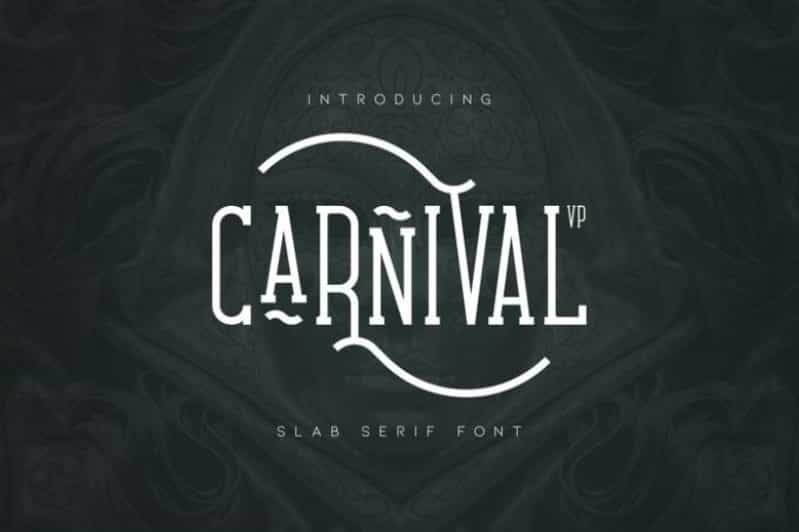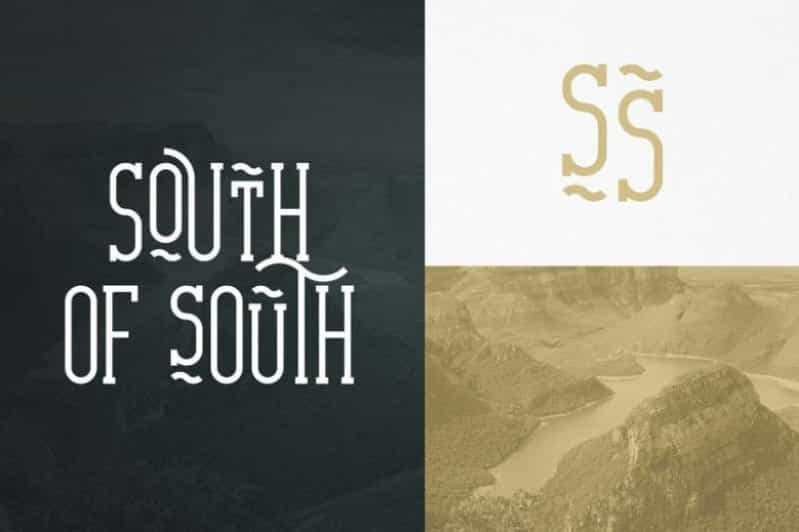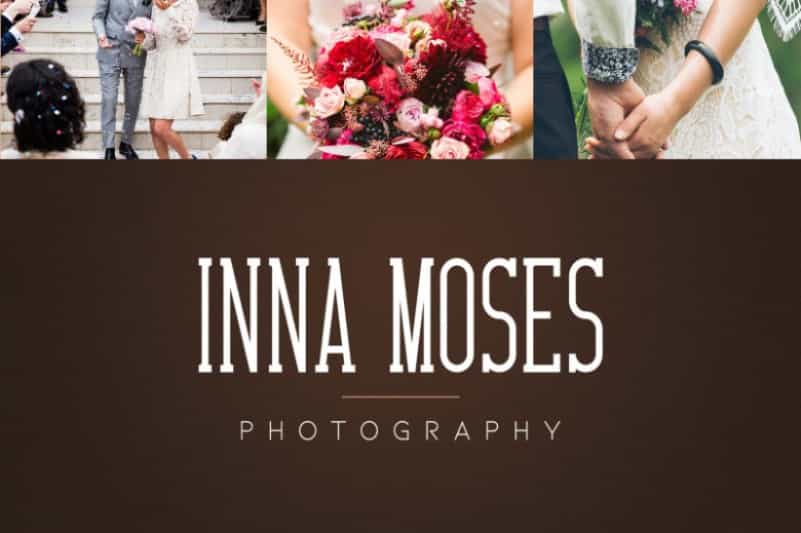
Carnival VP is a font that is long, clean with latin and Cyrillic support, has lots of alternate glyphs and multilingual support. It is a very adaptable font that looks good in both big and small sizes. Carnival is a great choice for branding projects, home-ware designs, product packaging and magazine headers – or just for the stylish text overlay to any background image.